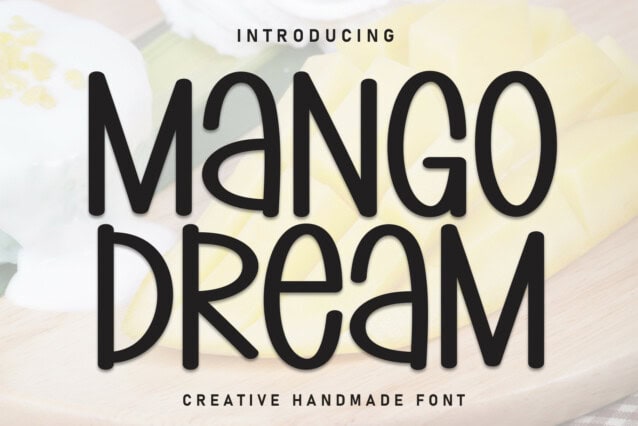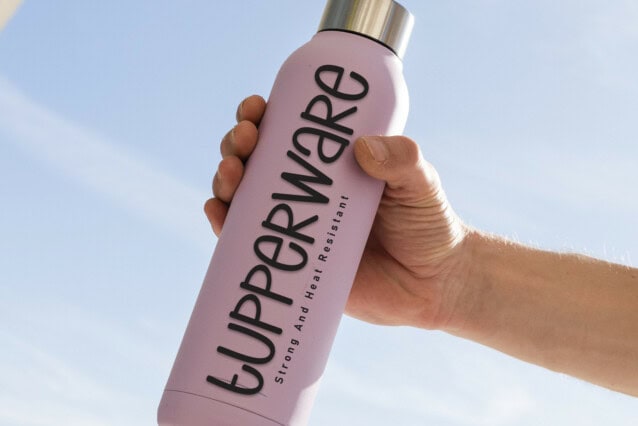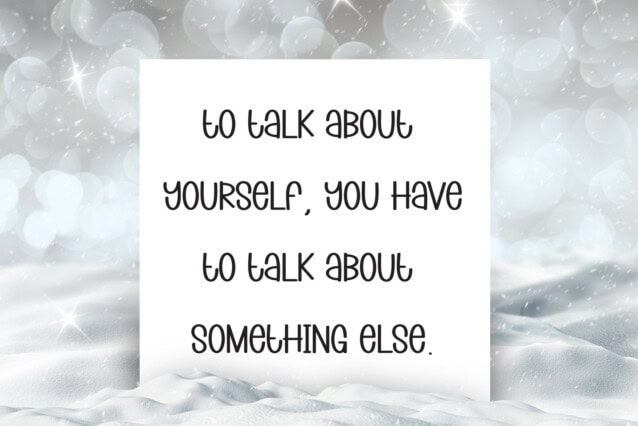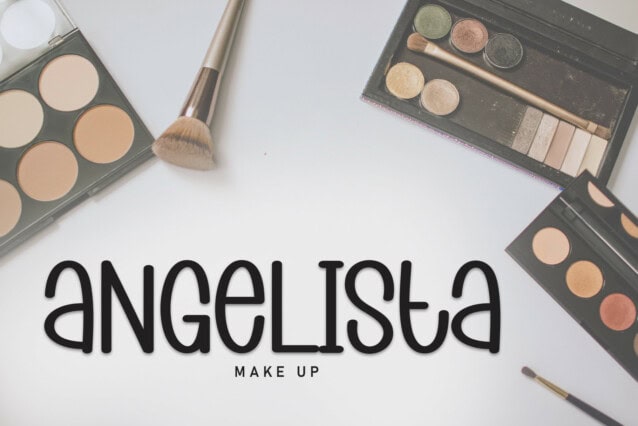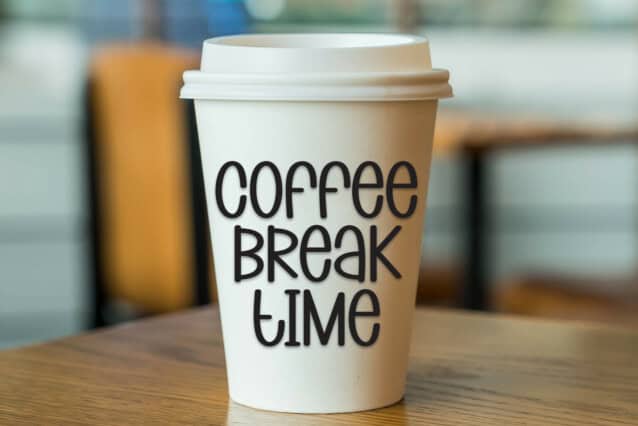
Mango Dream Display Font
Mango Dream Display Font is a sweet and friendly handwritten font. Its natural and unique style makes it incredibly fitting to a large pool of designs. The only limit is your imagination!